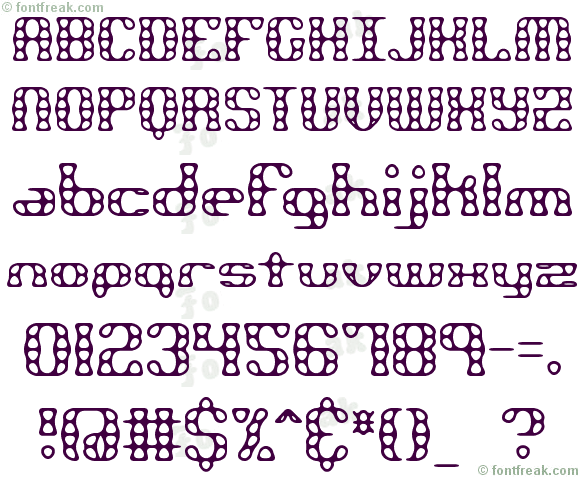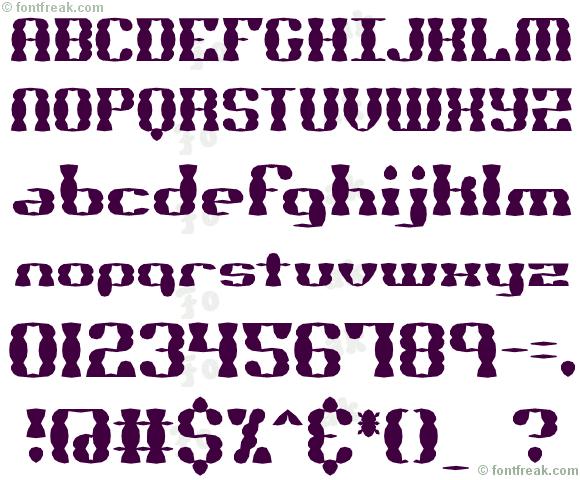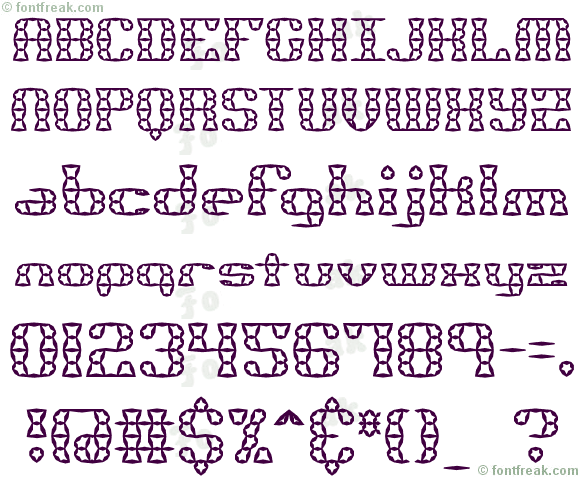
Brass Knuckle BRK
Brass Knuckle SS BRK
Brass Knuckle Star BRK
About Brass Knuckle
Brass Knuckle by Ænigma Fonts is a striking display typeface that captures the essence of bold, no-nonsense design. This decorative font features a unique combination of sharp edges and rounded forms, creating a visually engaging contrast that is both eye-catching and versatile. The stroke weight is substantial, lending an air of strength to any text, while the generous spacing between letters enhances legibility, making it suitable for a variety of applications. The design is characterized by its dynamic shapes that evoke a sense of movement and attitude, reminiscent of street art and urban culture.
The Brass Knuckle font is perfect for a range of creative projects. It excels in designing eye-catching movie posters that require a strong visual impact, as well as vibrant restaurant menus that seek to communicate personality and flair. Additionally, this font can elevate branding efforts for small businesses looking to establish a memorable identity, making it an excellent choice for logos and promotional materials. Graphic designers and content creators will find it particularly useful for creating striking social media graphics that demand attention and engagement.
The target audience for Brass Knuckle includes graphic designers, small business owners, and content creators who are seeking a font that stands out and adds character to their work. Its unique style can help differentiate a brand in a crowded market, providing a distinct voice that resonates with viewers.
What sets the Brass Knuckle font apart is its ability to blend boldness with creativity, making it an exceptional choice for those looking to make a lasting impression. Whether you are designing for print or digital media, this font offers a compelling aesthetic that is sure to leave a mark. Don’t miss the opportunity to enhance your projects with the Brass Knuckle font free download.